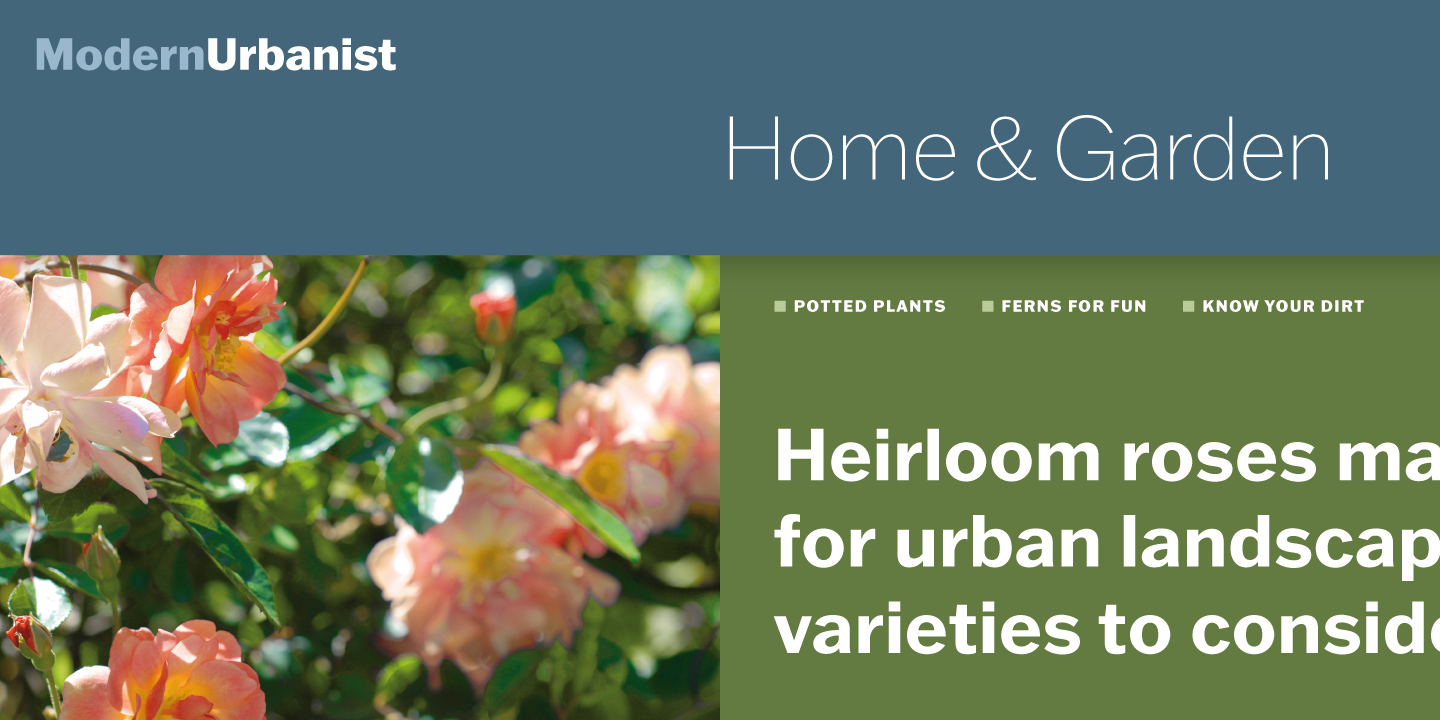
ATF Franklin Gothic Font is ideal for newspaper headlines, industrial company branding, vintage advertising campaigns, heritage manufacturing logos, traditional print publications, classic American signage, historical preservation projects, and authentic period design reproductions.
What makes ATF Franklin Gothic Font truly exciting is its iconic representation of classic American typography that embodies the bold spirit and industrial strength of early 20th-century design through robust, no-nonsense letterforms that command immediate attention. This legendary typeface features distinctive Gothic characteristics with strong vertical emphasis and condensed proportions that instantly communicate reliability, authority, and timeless American craftsmanship, making it the perfect choice for brands seeking to honor traditional values while maintaining contemporary relevance.
The ATF Franklin Gothic Font family encompasses regular, condensed, extra condensed, and various weights including light, medium, and bold variations, along with italic versions that preserve the authentic historical character, providing designers with comprehensive tools for creating authentic period-appropriate brand experiences and classic American communications.
Publishing companies and heritage brands will find ATF Franklin Gothic Font Free Download essential for creating authentic representations of classic American design that resonate with audiences who appreciate traditional craftsmanship and historical accuracy. This versatile typeface excels in both large-scale headline applications and detailed text settings, maintaining its authoritative character across all traditional contexts.
The font's robust construction demonstrates unwavering commitment to preserving authentic historical typography while ensuring modern functionality standards. From newspaper mastheads to vintage-inspired packaging, this classic typeface maintains its American heritage appeal while providing the reliability needed for contemporary commercial applications. Traditional brands appreciate how this font effortlessly communicates heritage, reliability, and distinguished American historical design excellence through superior Gothic-inspired typography.